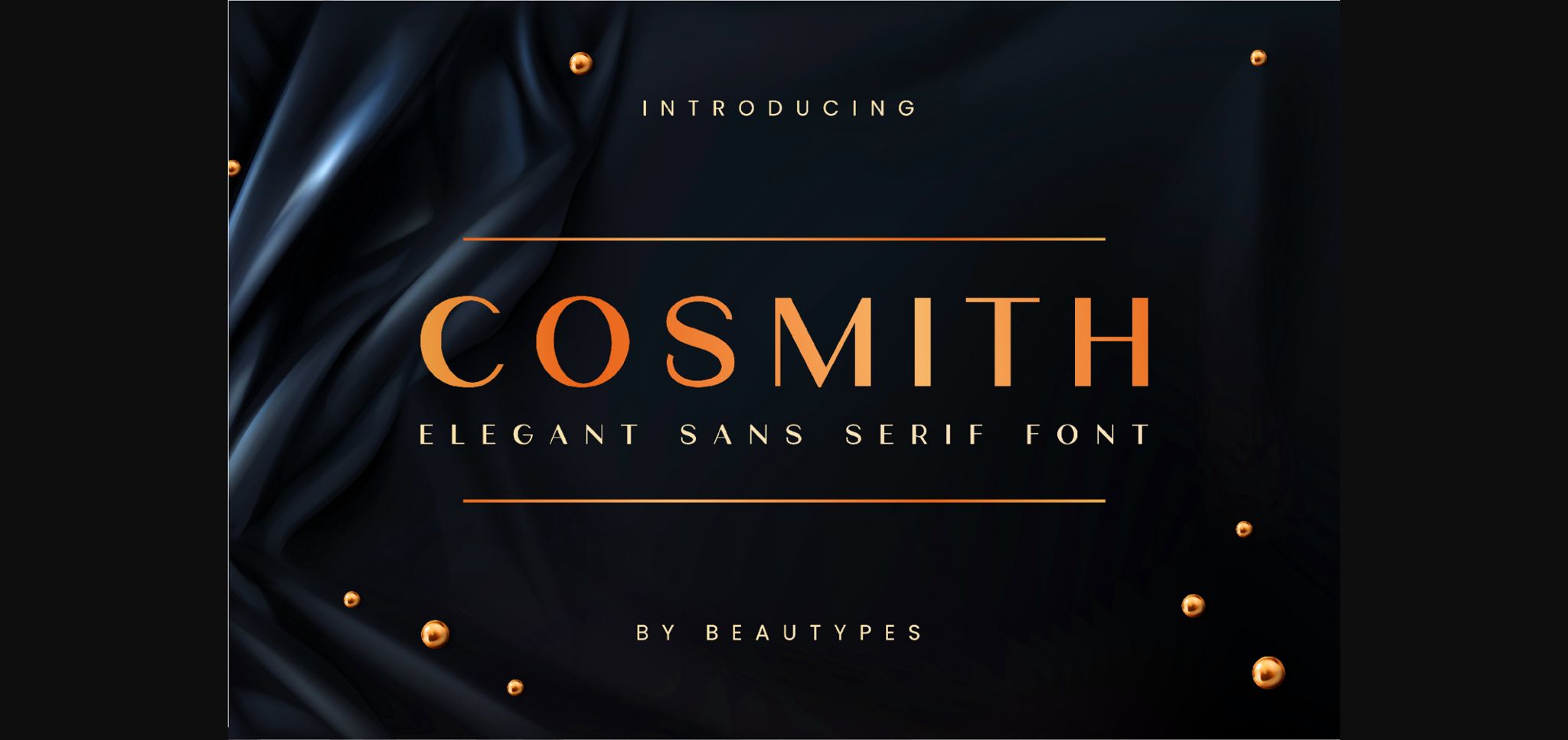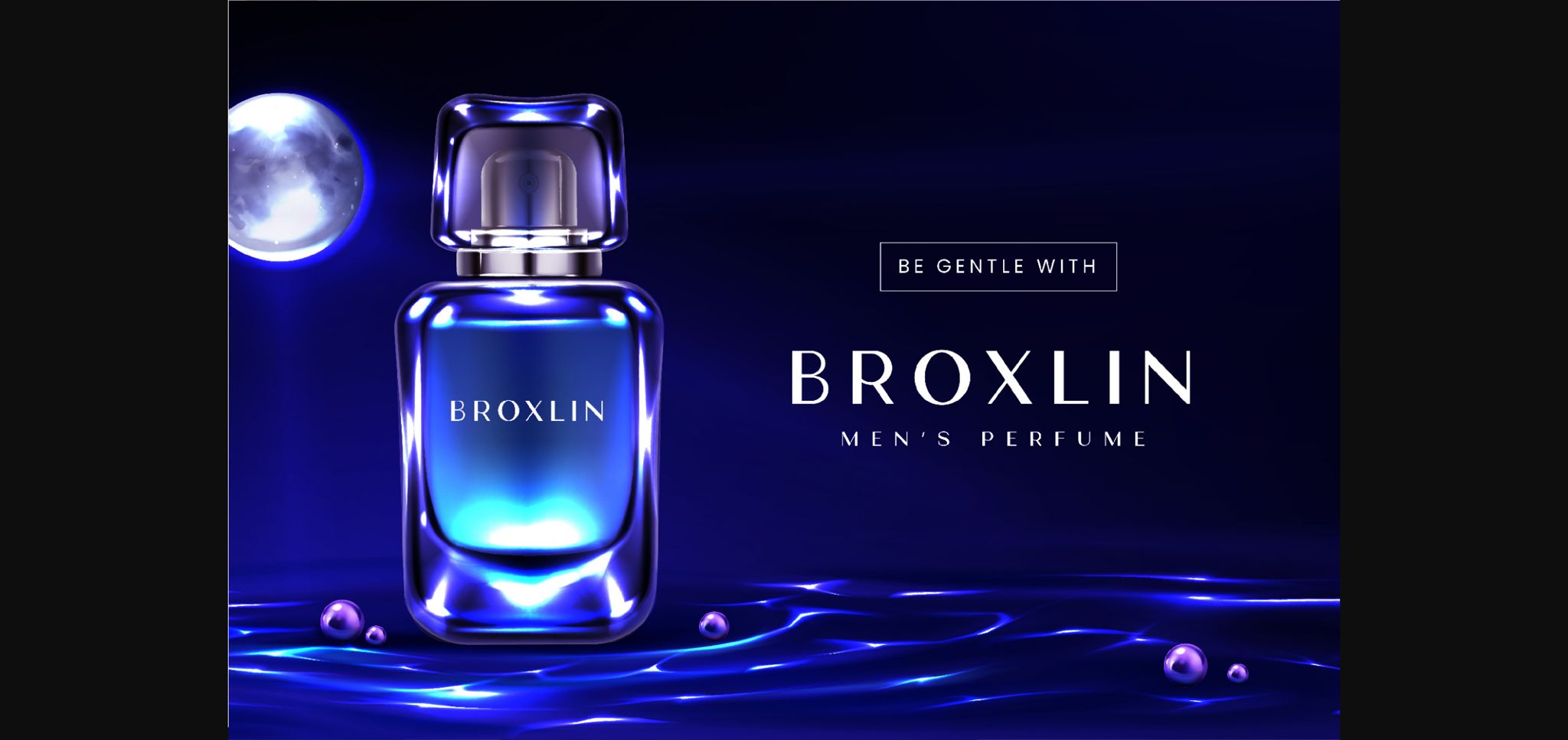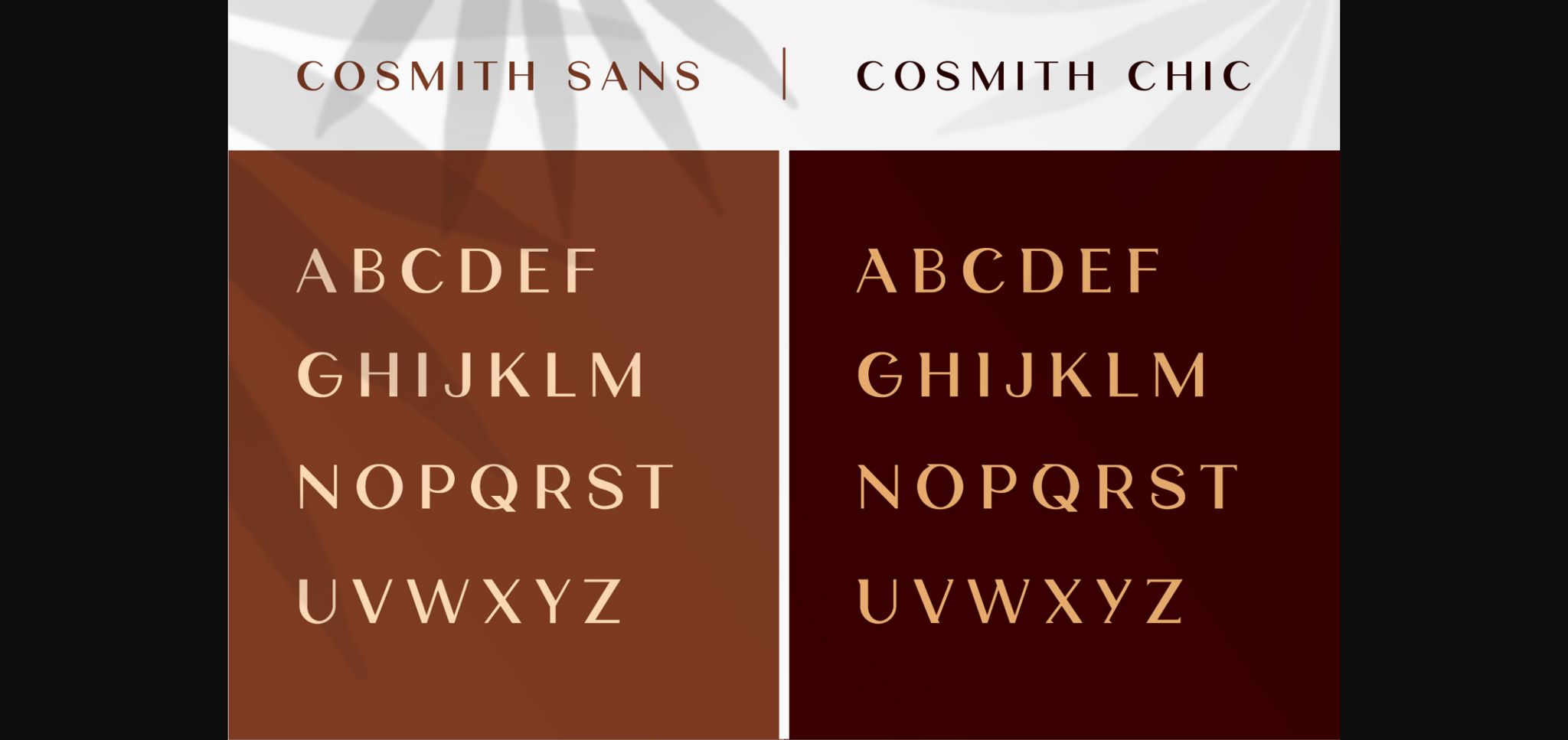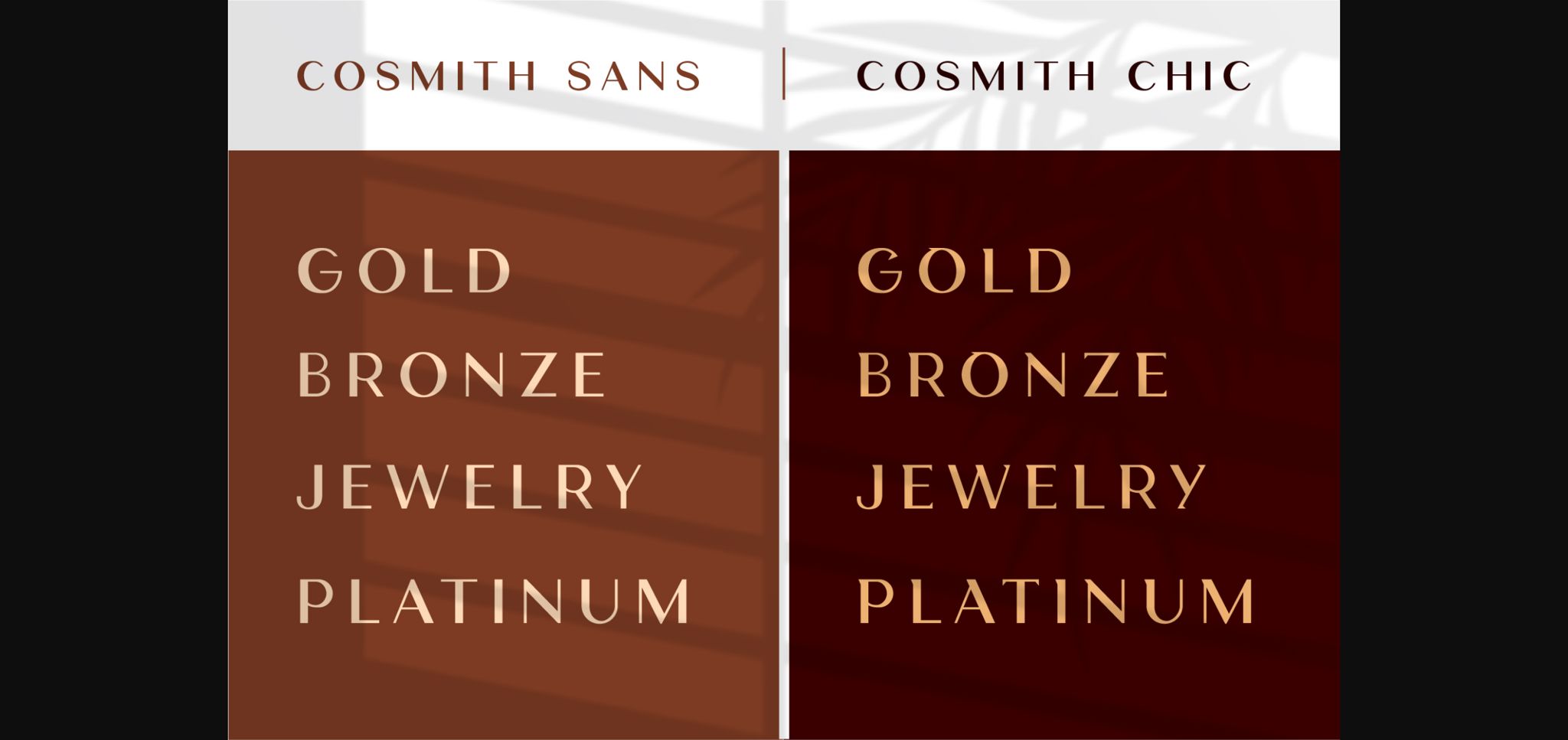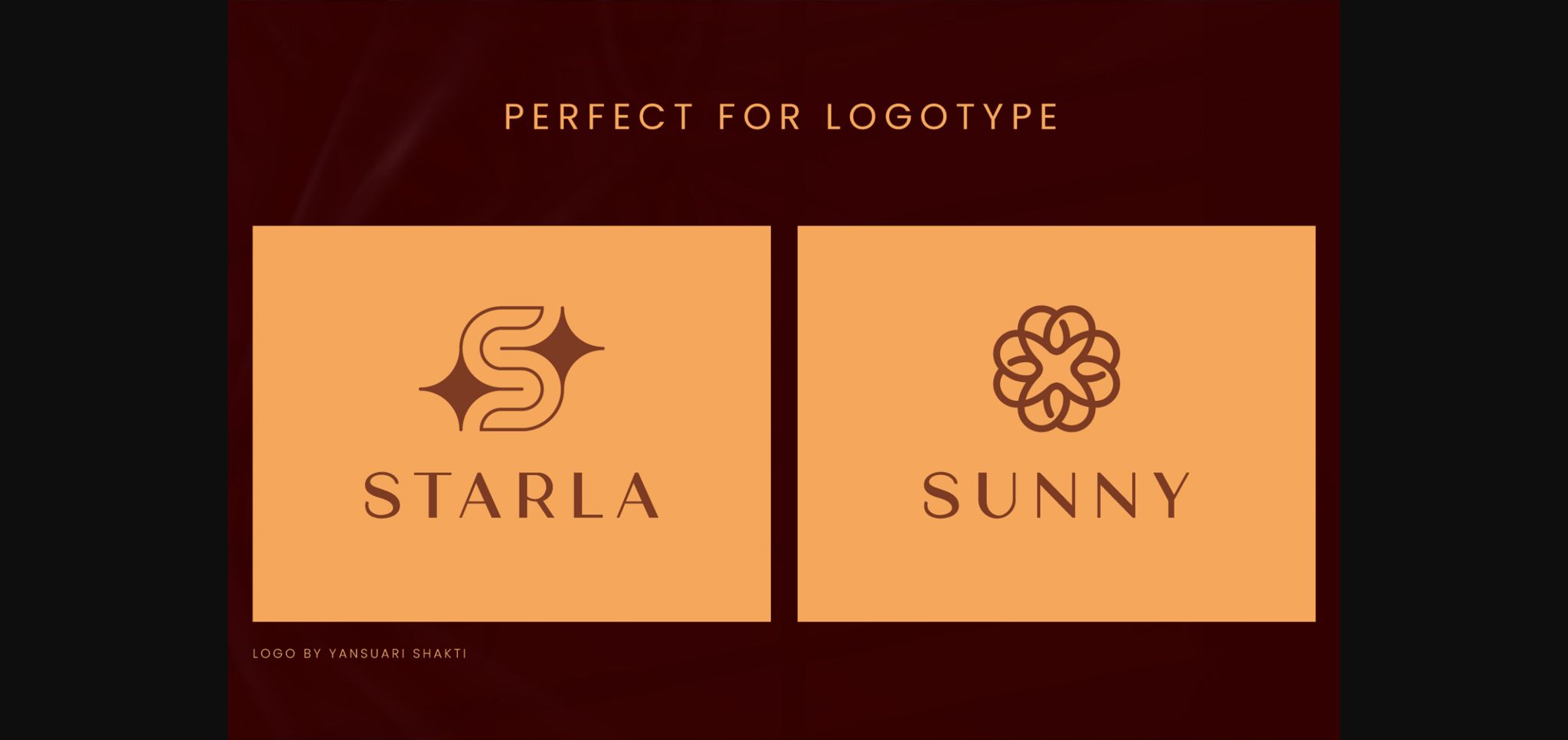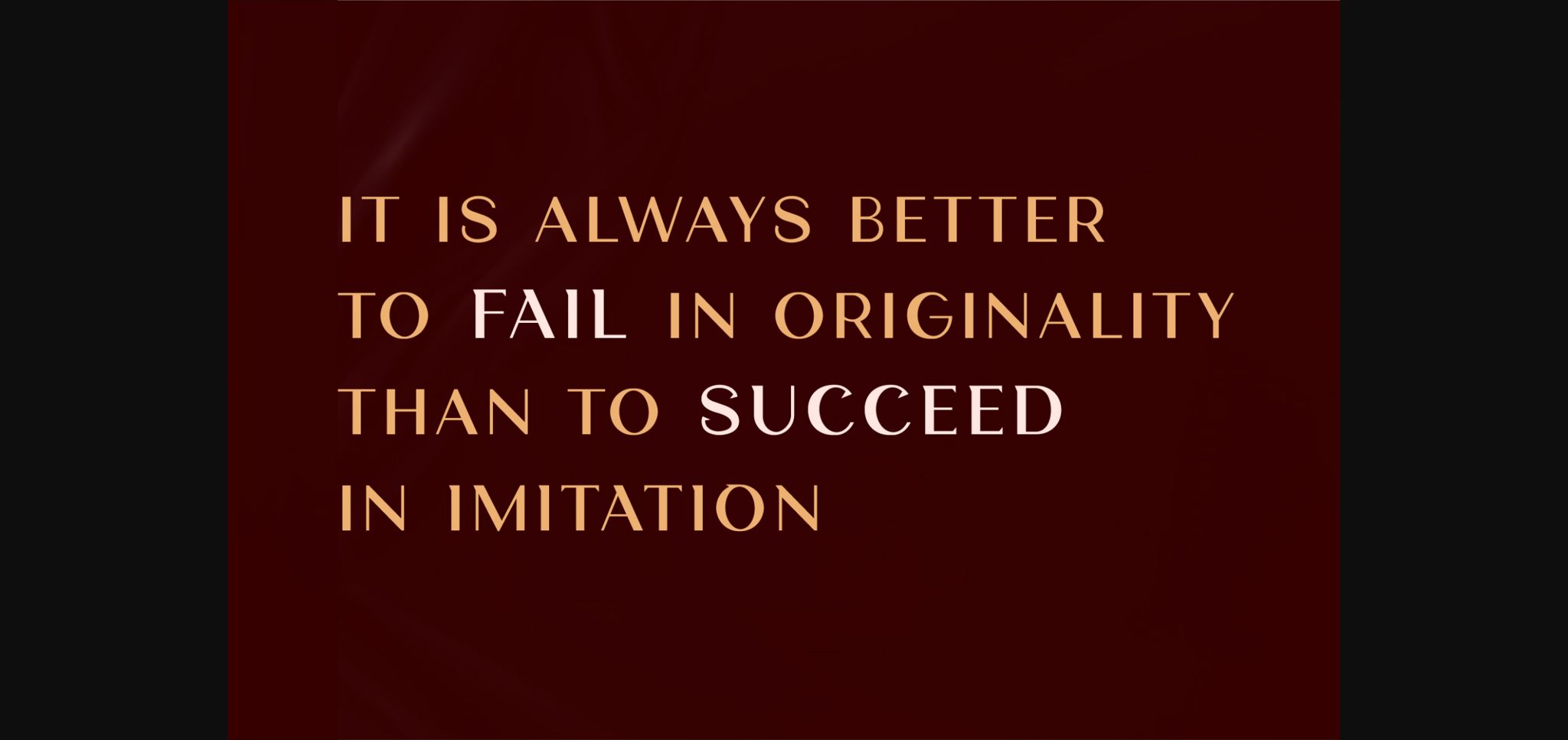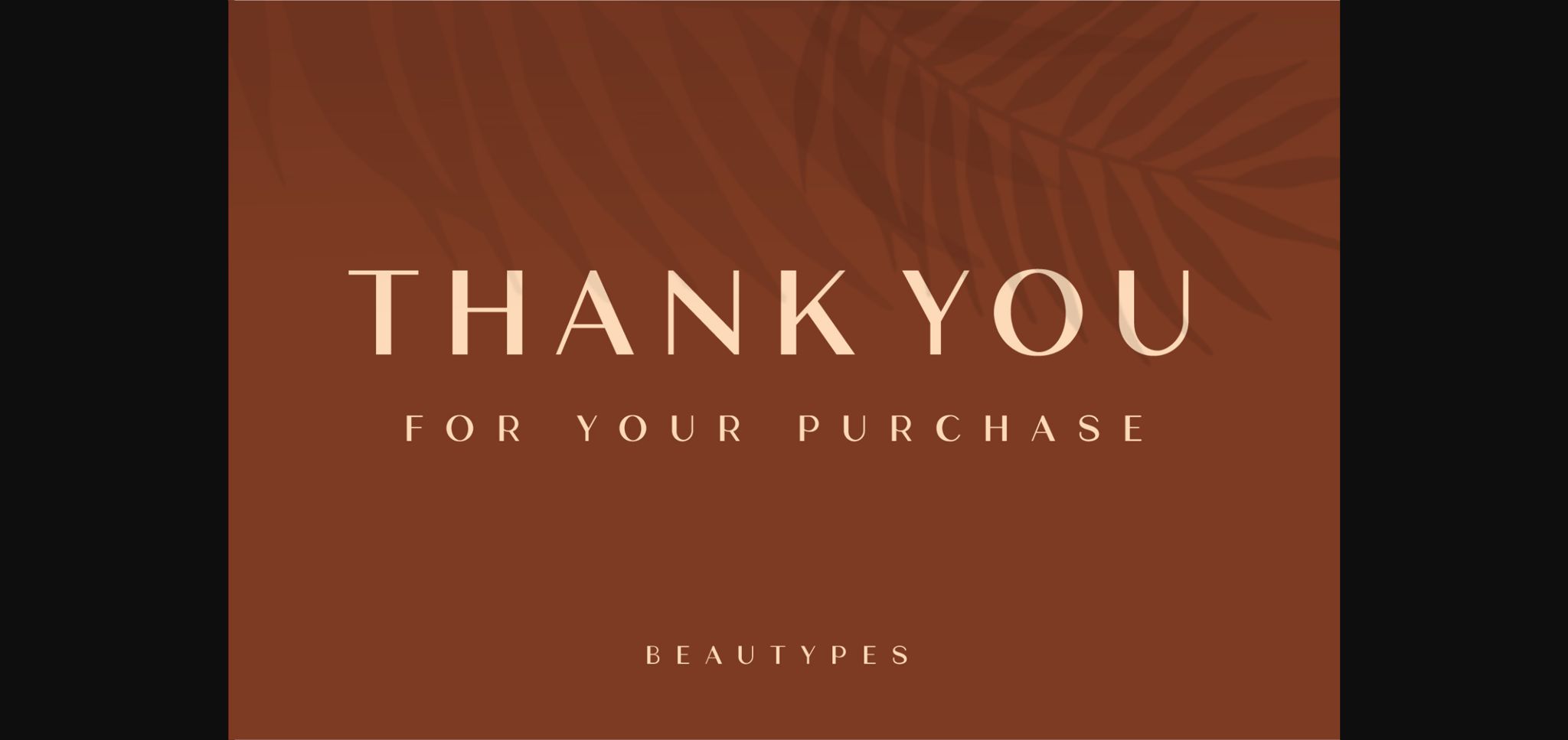
HomeSans Serif FontsCosmith Font Sans Serif Fonts Cosmith Font FacebookXPinterestWhatsApp 1 of 9 ... Cosmith Font Poster 2... Cosmith Font Poster 3... Cosmith Font Poster 4... Cosmith Font Poster 5... Cosmith Font Poster 6... Cosmith Font Poster 7... Cosmith Font Poster 8... Cosmith Font Poster 9... About Cosmith Font Cosmith is a simple and elegant duo font (serif and sans serif). It is the best choice for creating eye catching logos, branding and quotes. DOWNLOAD NOW People also explored Marlin Love Story Font Homework Font Brewoke Baby Style Font Gadalahi Font Zachariah Font Misgaretha Font Halloween Font 290 0 TagsCosmithCosmith Font Previous articleVictoria Tech FontNext articlePreditch Font LEAVE A REPLY Cancel reply Comment: Please enter your comment! Name:* Please enter your name here Email:* You have entered an incorrect email address! Please enter your email address here Website: Save my name, email, and website in this browser for the next time I comment. Personal Use Free Ciggs Personal Use Free Read more about this font Befindisa Personal Use Free Read more about this font Arnprior Personal Use Free Read more about this font Vinograd Personal Use Free Read more about this font BLOG Elegant Wedding Invitation Fonts – Handwritten & Script Fonts Elegant Wedding Invitation Fonts Your wedding day is one of the most important moments of your life, and every detail matters—including your invitation design. Our... Fonts That Capture the Spirit of New York City Best Fonts for YouTube Videos: Make Your Thumbnails Stand Out Where to Buy American Fonts Online in 2024